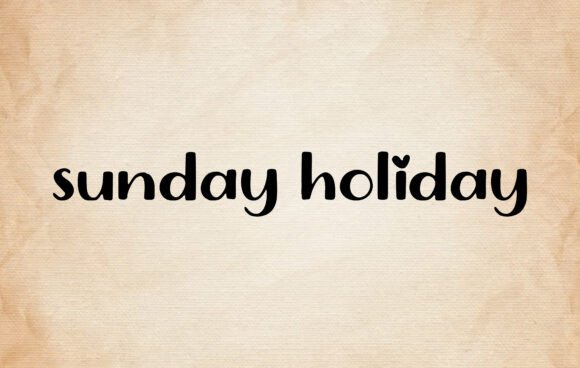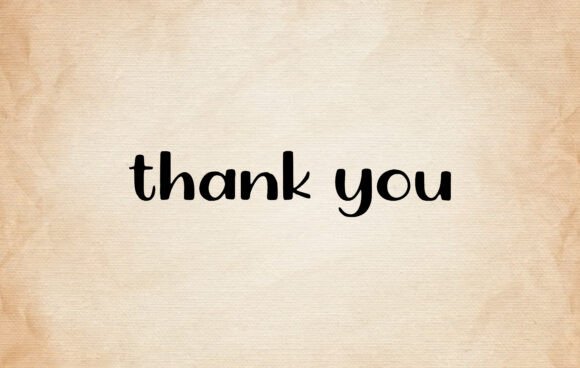
Introducing Forgets Font: Elevate Your Designs with Elegance and Versatility
In the world of design, fonts play a pivotal role in bringing creative ideas to life. Among the myriad of typefaces available, Forgets Font stands out as a remarkable choice for designers and crafters alike. This font is not just a typeface; it’s a tool designed to elevate your creative projects to unprecedented heights. With its impeccable design, Forgets Font is poised to become a true favorite in your collection, offering a blend of elegance, versatility, and legibility that is hard to find.
Legibility and Aesthetic Appeal
One of the key features that set Forgets Font apart is its exceptional legibility. Whether you’re using it for a title or as body text, this font maintains clarity and readability across various platforms and mediums. Its aesthetic appeal is undeniable, making it a perfect candidate for a wide range of design projects. From the bold statements needed for magazine headlines to the subtle yet impactful text on t-shirts, Forgets Font adapts seamlessly.
Versatility Across Different Designs
The versatility of Forgets Font is one of its most compelling attributes. It’s a font that can transcend the boundaries of traditional design, making it suitable for an array of applications. Here are some areas where Forgets Font can make a significant impact:
- Magazine Headlines: Grab the attention of your readers with bold and stylish headlines that set the tone for your content.
- T-Shirts and Apparel: Create striking and memorable designs for clothing and accessories that stand out.
- Social Media: Enhance your posts and stories with a distinctive font that elevates your brand’s visual identity.
- Branding: Establish a consistent and professional look for your brand across all your marketing materials.
- Wedding Invitations and Cards: Add a touch of elegance and sophistication to your stationery with beautifully crafted typography.
Why Choose Forgets Font?
Choosing Forgets Font for your design projects comes with numerous benefits:
- Ease of Use: Designed to be user-friendly, it integrates smoothly into your design workflow.
- High-Quality Output: Produces crisp and clear text, ensuring your designs look professional and polished.
- Customization: Offers flexibility for customization, allowing you to tailor it to fit your project’s specific needs.
Forgets Font is more than just a typeface; it’s a design companion that can help you achieve your creative goals. Its legibility, aesthetic appeal, and versatility make it an indispensable tool for designers and crafters looking to make a statement. Whether you’re working on a commercial project or a personal endeavor, Forgets Font has the potential to elevate your designs to new heights. Make it your go-to font for projects that demand elegance, clarity, and impact.